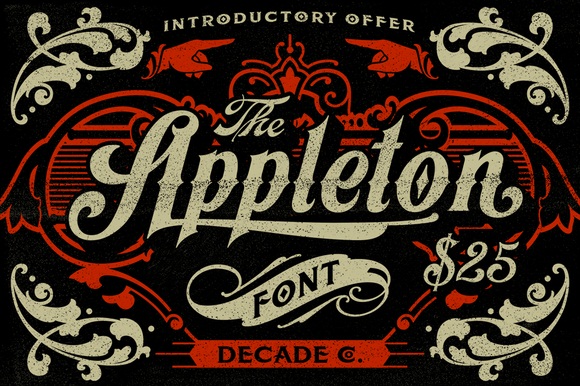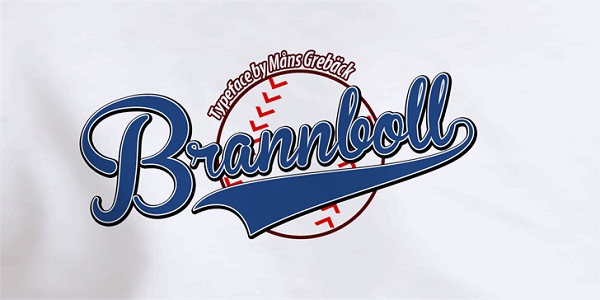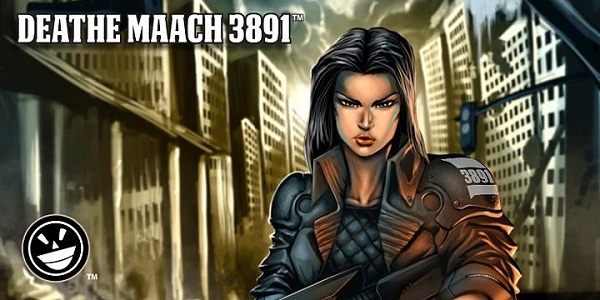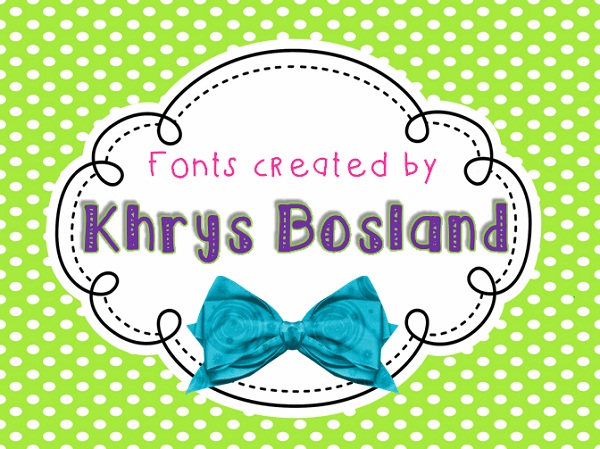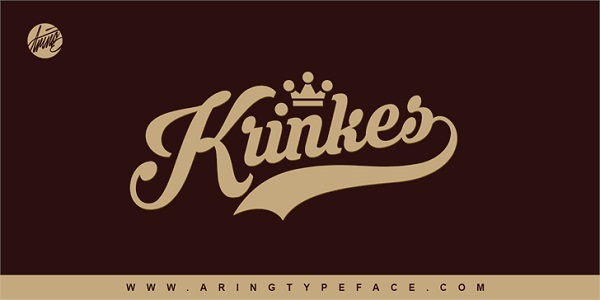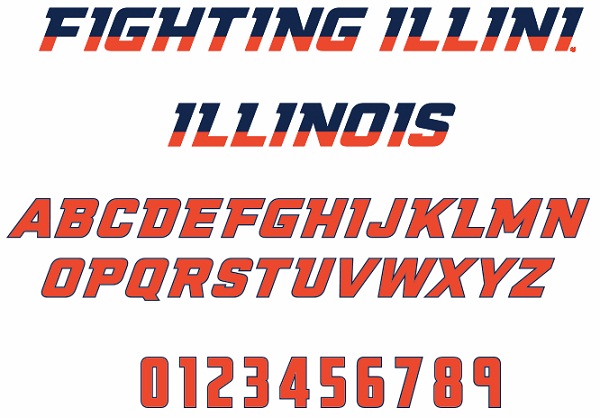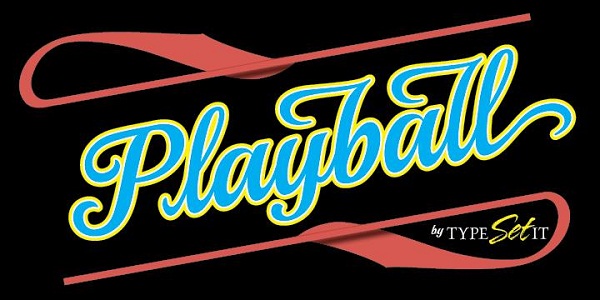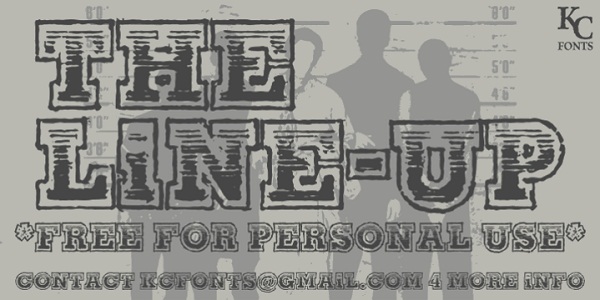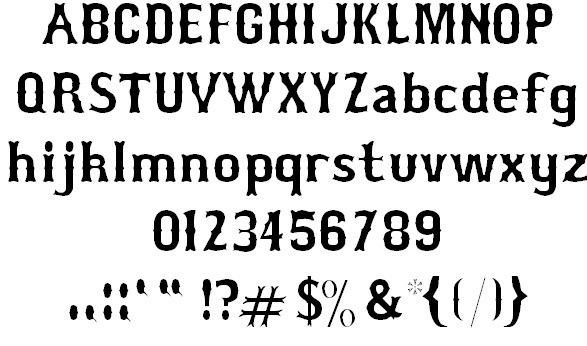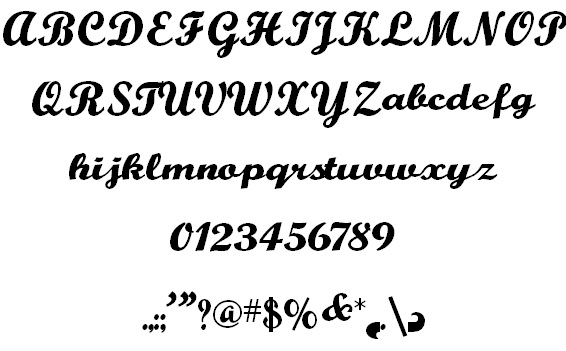
20 Free BaseBall Fonts For Designer
Baseball fonts for designer are a tough task to find online as there are very few sites that provide sport based typography. Normally, in web, finding designer fonts is an easy task and very quick to apply but to design a sports blog or logo, you may need such fonts that are aggressive in look, gives the readers the feeling of adrenaline and enthusiasm and can create the actual crazy feeling that is same to watch the baseball match in the stadium.
Though these types of fonts are rarely available but we have gathered some exclusive baseball fonts for the designers to make such logo that speaks the zest and passion of baseball just by the look. The cherry of the cake is that all these 20 designs are attractive and exclusive for your perusal.
Here are Free Baseball Fonts for designers:
1. DEATHE MAACH NCV font
DEATHE MAACH NCV font
2. Playball font
Playball font
3. CANDY INC. font
CANDY INC. font
4. JACKPORT COLLEGE NCV font
JACKPORT COLLEGE NCV font
5. Bosox font
Bosox font
6. Brannboll Fet font
Brannboll Fet font
7. DHF Broffont Script font
DHF Broffont Script font
8. Appleton by Decade Type Foundry
Appleton by Decade Type Foundry
9. The Line-Up font
The Line-Up font
10. Friday Night Lights font
Friday Night Lights font
11. Athletic Baseball Font
Athletic Baseball Font
12. Krinkes PERSONAL USE font
Krinkes PERSONAL USE font
13. Richardson Brand United font
Richardson Brand United font
14. NCAA Illinois Fighting Illini font
NCAA Illinois Fighting Illini font
15. NCAA Army 2015 font
NCAA Army 2015 font
16. KBABCDoodles font
KBABCDoodles font
17. Sportscenter font
Sportscenter font
18. Buffalo Nickel font
Buffalo Nickel font
19. Nike Ithaca font
Nike Ithaca font
20. MLB Toronto Blue Jays Wilson font
MLB Toronto Blue Jays Wilson font